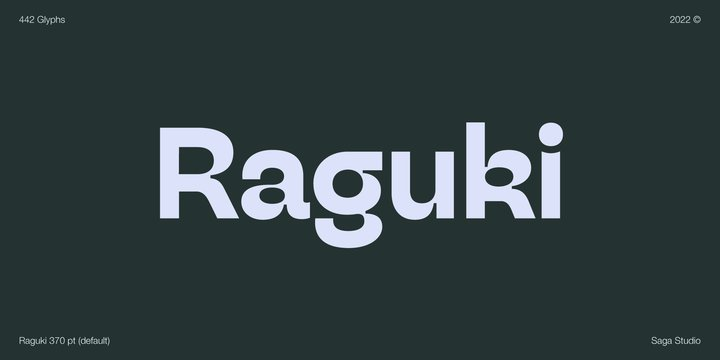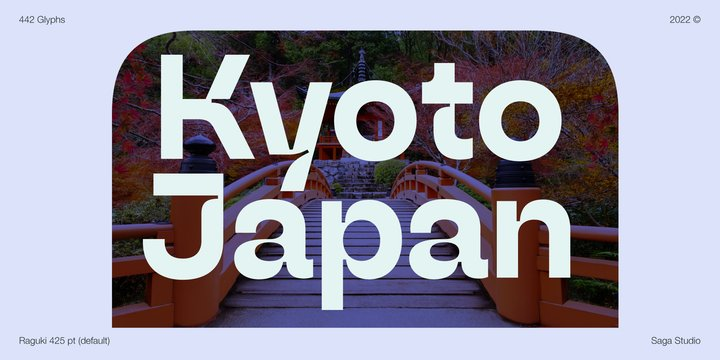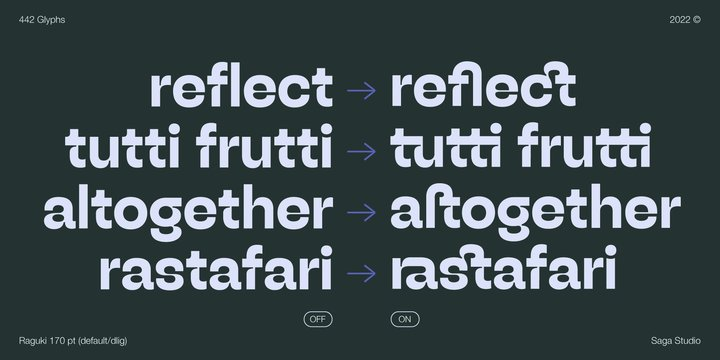
Raguki Font
Raguki FontRaguki is a sans serif display font with a modern and unique style. Aesthetic letterforms with stylistic ink traps make this font have bags of personality. Raguki has open-type features (salt and ss01) that enable the user to transform the letterforms to create different designs.